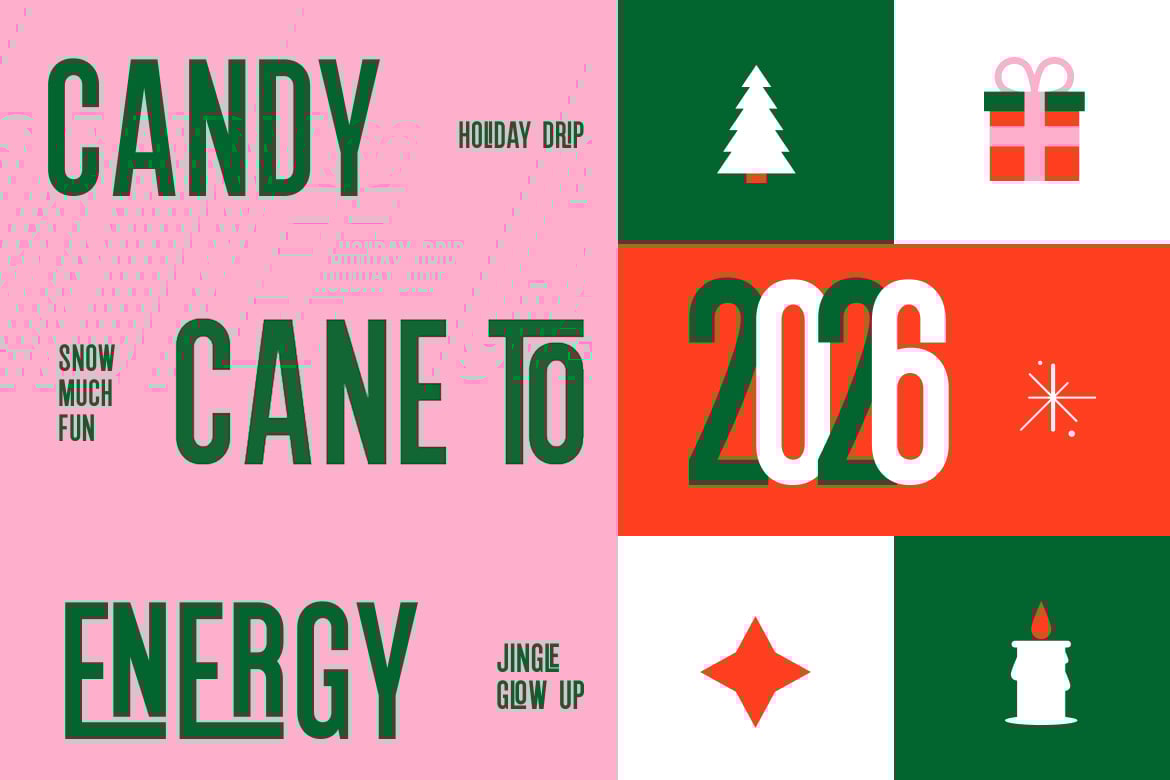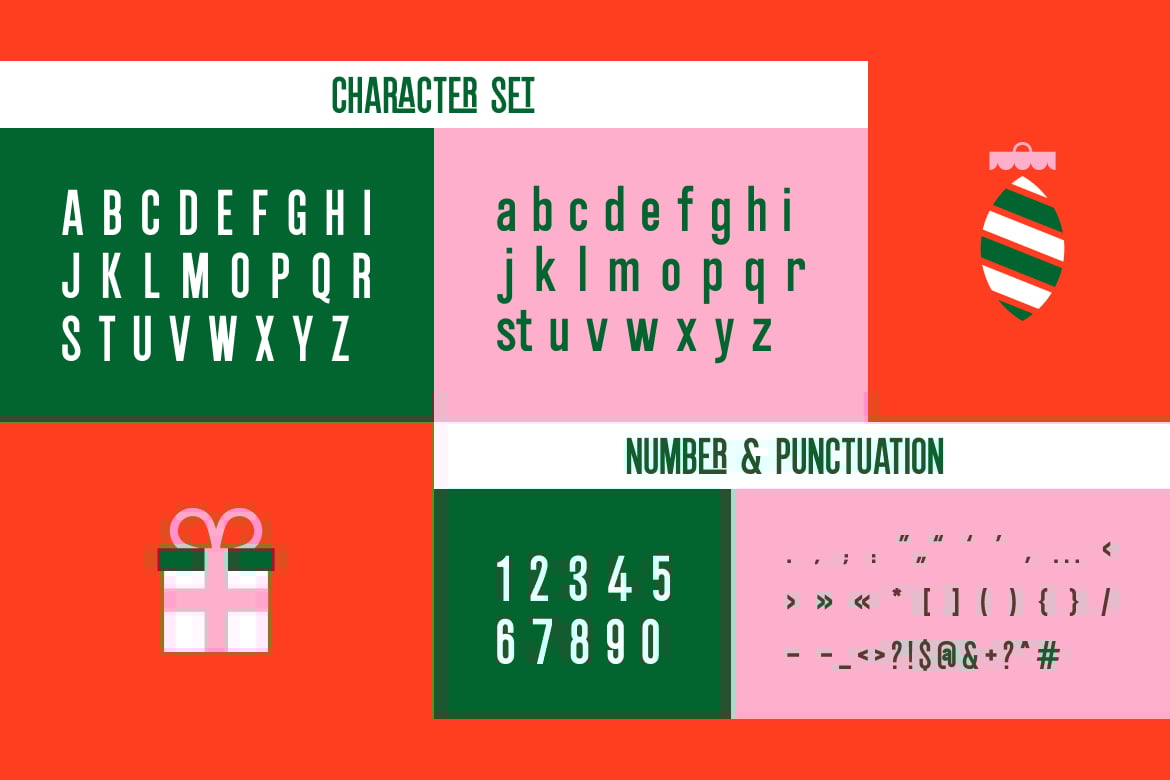
Bright Winter
Bright Winter is a festive modern sans serif font designed with geometric structure and cheerful holiday spirit. Its tall and narrow letterforms give a stylish retro touch, while the special ligatures add playful character to every composition.
Ideal for Christmas cards, seasonal branding, packaging, or holiday campaigns, this typeface captures the warmth of the season with a clean and contemporary design. Featuring uppercase and lowercase letters, numbers, punctuation, and creative ligatures for added versatility.
Relevance and Use Cases is perfect for elegant Christmas cards, holiday packaging, festive invitations, brand campaigns, poster titles, and winter-themed editorials. Harmonia brings a luxurious, balanced, and festive character to your seasonal typography with timeless charm and decorative finesse.